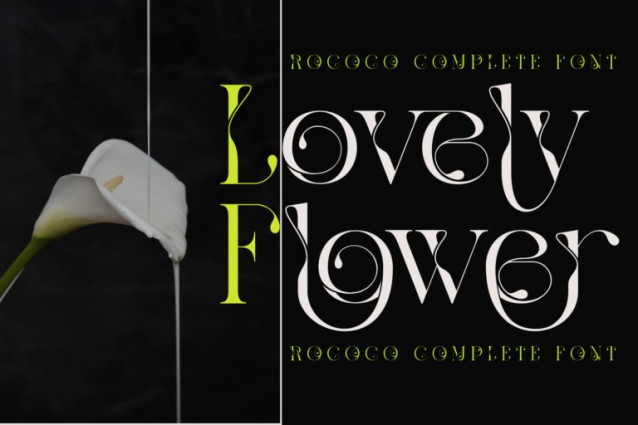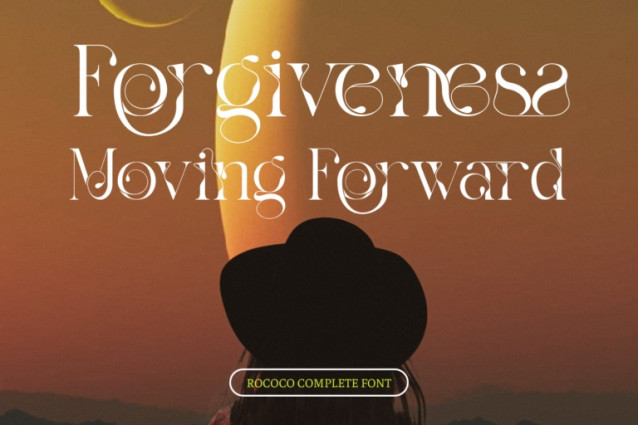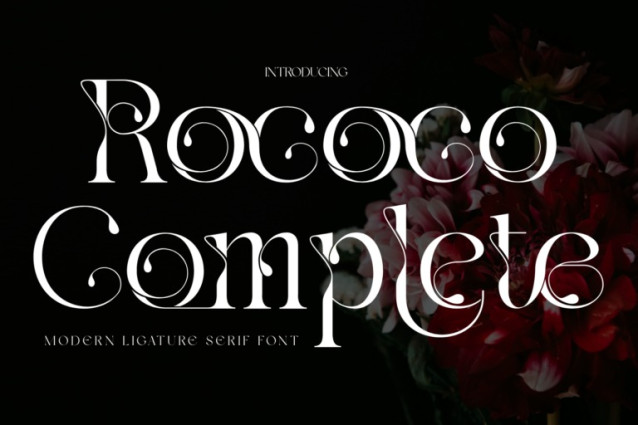
Rococo Complete Font
Rococo Complete – Ligature Serif Font – An Elegant Modern Ligature Serif Font, a sophisticated Modern Serif font meticulously crafted with a stunning array of decorative ligatures. Inspired by ornate elegance, this font features high-contrast strokes and graceful curves, but its true magic lies in the intricate connections and flourishes that flow between letters.
Rococo Complete is perfect for creating luxurious branding, elegant logos, captivating headlines, high-end invitations, editorial designs, and any project where sophisticated typography takes center stage. Elevate your work with its unique blend of classic serif structure and elaborate, modern artistry.
Uppercase & Lowercase Letters: A full set of elegantly designed base characters.
~100 Special Ligatures: An extensive collection of unique ligatures and potentially alternates, allowing for breathtakingly beautiful and custom typographic compositions.
Numerals & Punctuation: Complete set of numbers and punctuation, styled cohesively with the font’s elegant aesthetic.
Accented Characters: Wide multilingual support with a comprehensive range of accented characters.
About 100 ligatures combined with Stylistic Alternates Font: